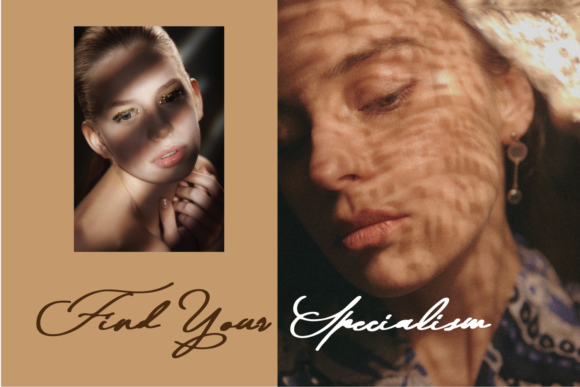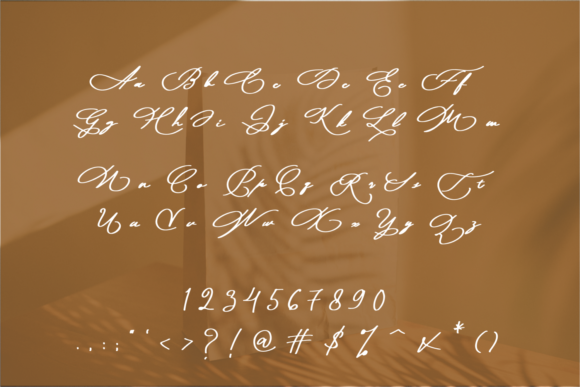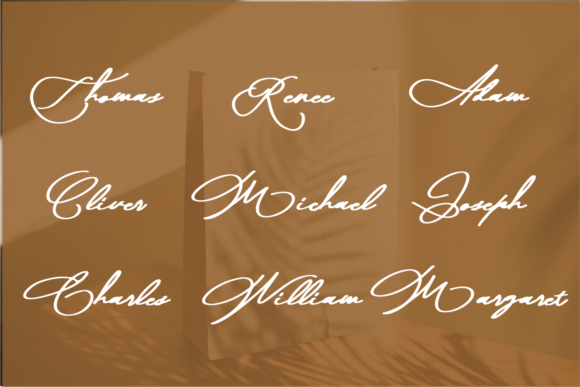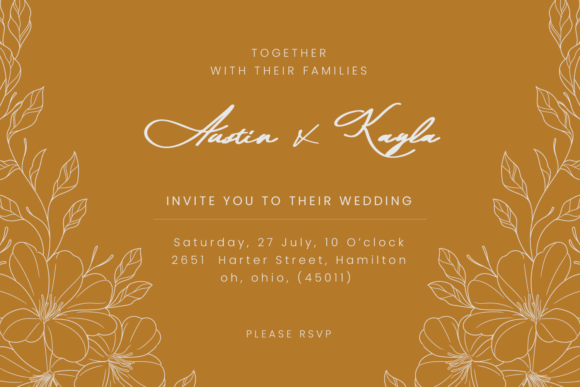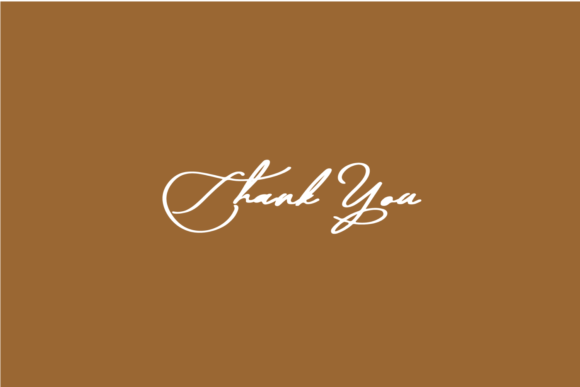
Moana Script Font
About Moana Script Font
Moana Script is a chic, refined script font that emanates sophistication and elegance. Its stylish alternates and ligatures make this font the perfect match for any project.